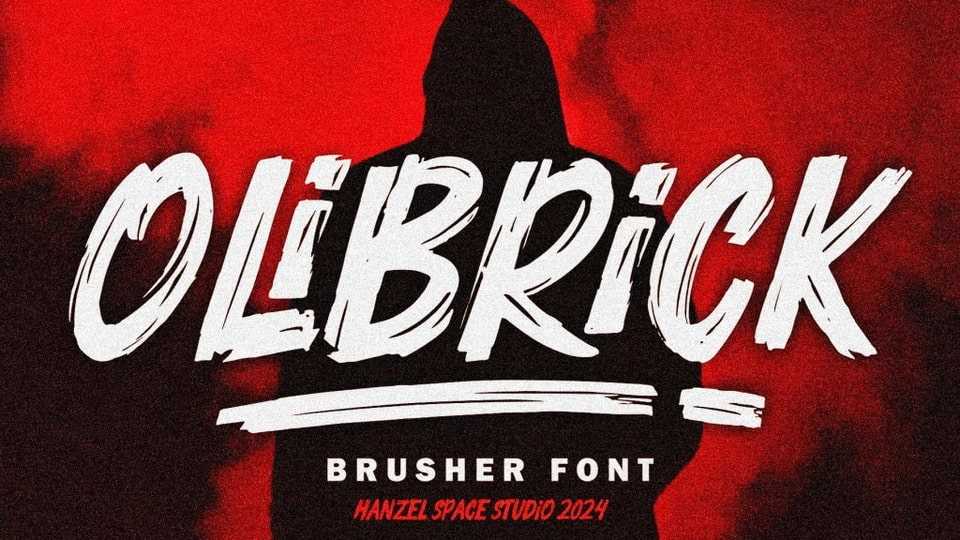
Download Olibrick font, a hand painted typeface, deliberately made with a brushed style, because the shape of the character is very suitable for product branding.